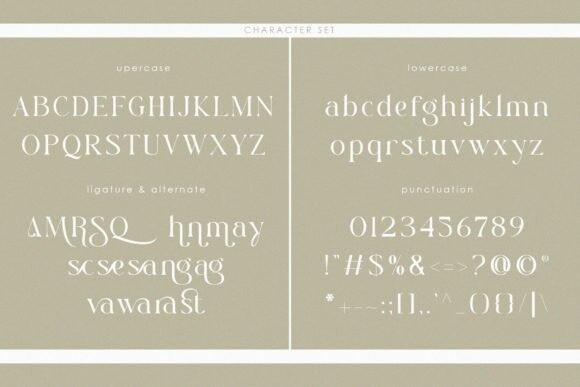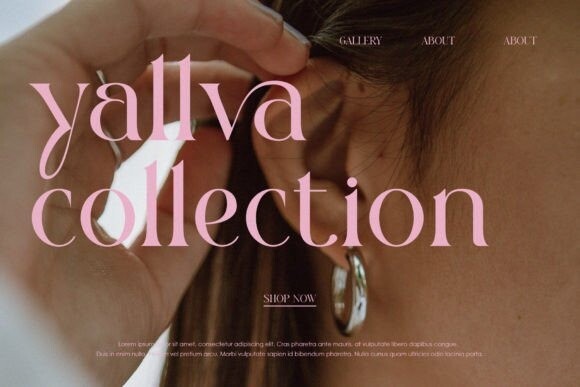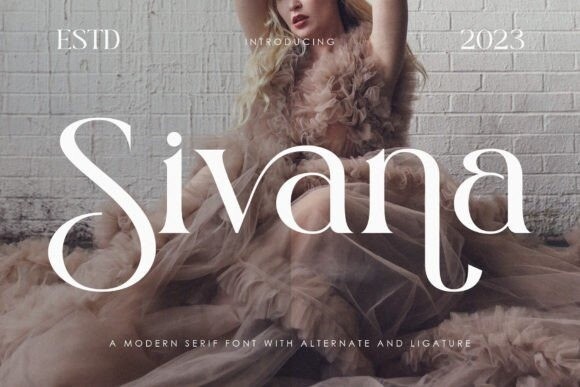
Sivana Font
Sivana Font: An elegant and modern serif typeface. With its modern and minimalist appearance, Sivana brings a luxurious and clean style to your projects such as websites, modern logos, branding identities, social media quotes, wedding stationery, and various other needs!